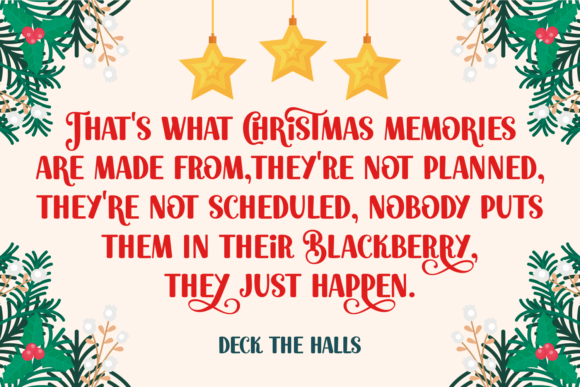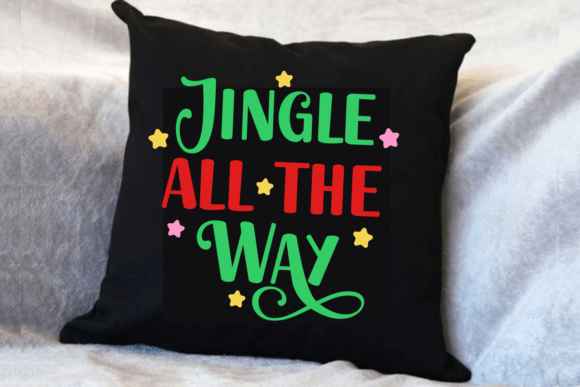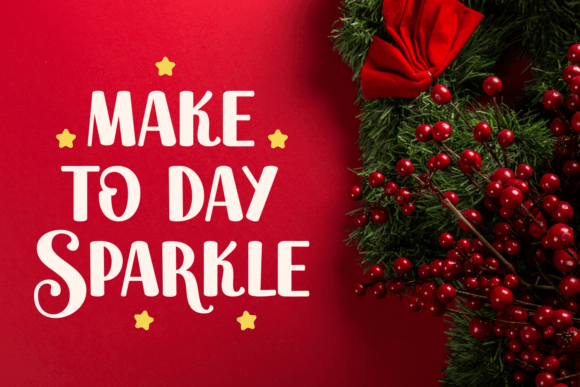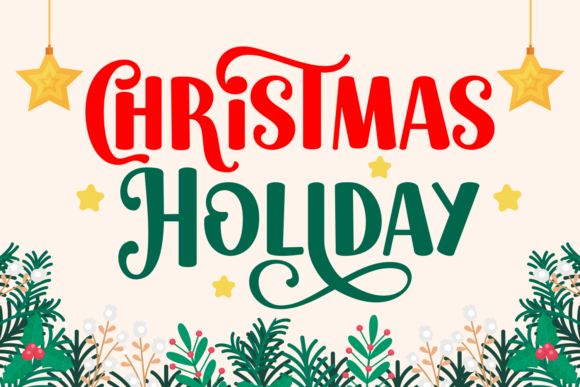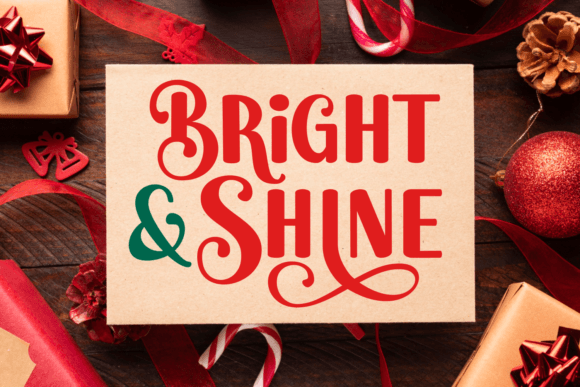
Christmas Beautiful font is a festive and playful typeface adorned with enchanting swashes. Perfect for adding a touch of holiday magic to your Christmas cards, decorations, and more. Spread the joy of the season with this whimsical font.
Christmas Beautiful Font